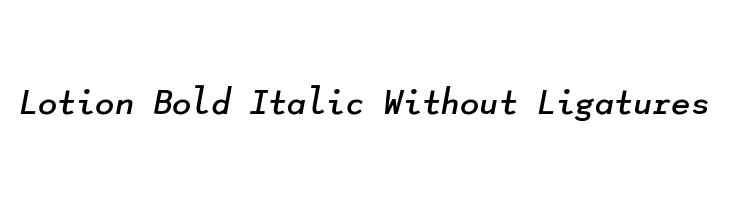
A bold, italic font with a dynamic slant and no ligatures.
A bold, modern font with clean lines and strong readability.
A modern italic font with a clean, slanted style and no ligatures.
A clean, geometric sans-serif font with uniform stroke width and excellent legibility.
A modern, italicized font with medium contrast and balanced spacing.
A modern sans-serif font with geometric influences and balanced spacing.
A clean, modern sans-serif font with semi-bold weight and balanced structure.
A modern, italic font with balanced proportions and a clean design.
A semi-bold, italic font with a modern and clean design, lacking ligatures.
A clean, modern sans-serif font with semi-bold weight and no ligatures.